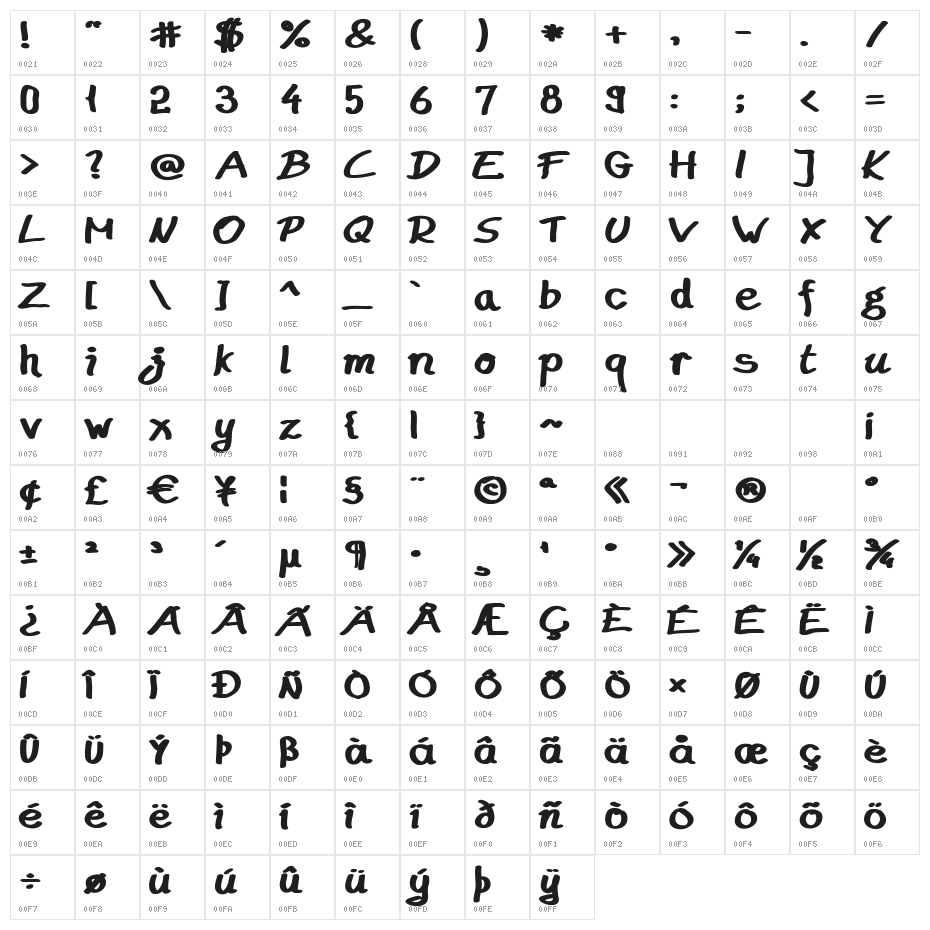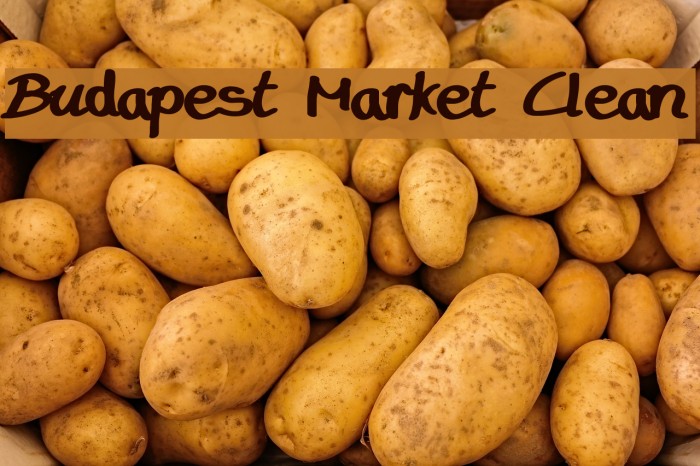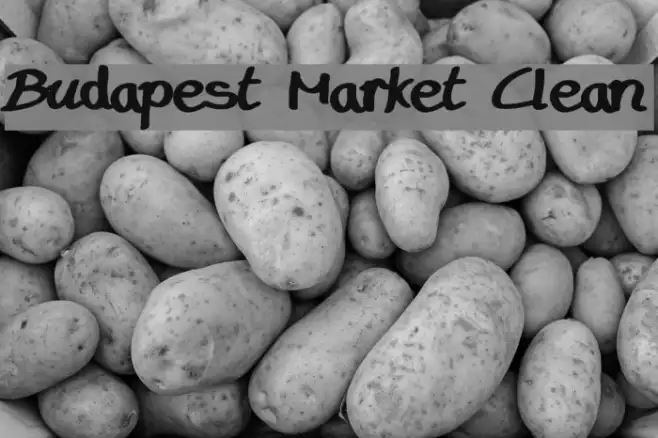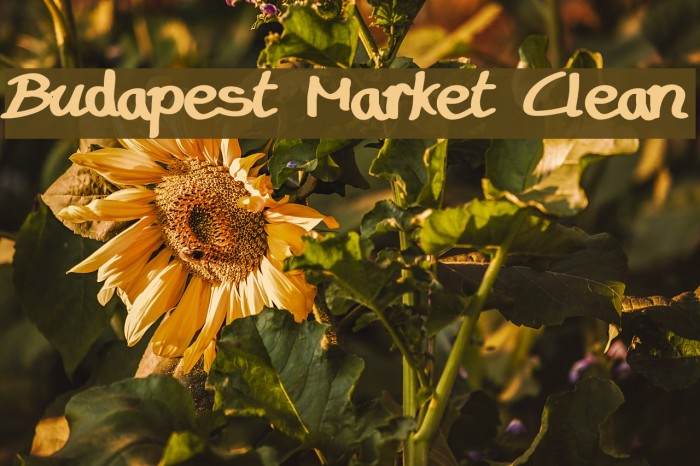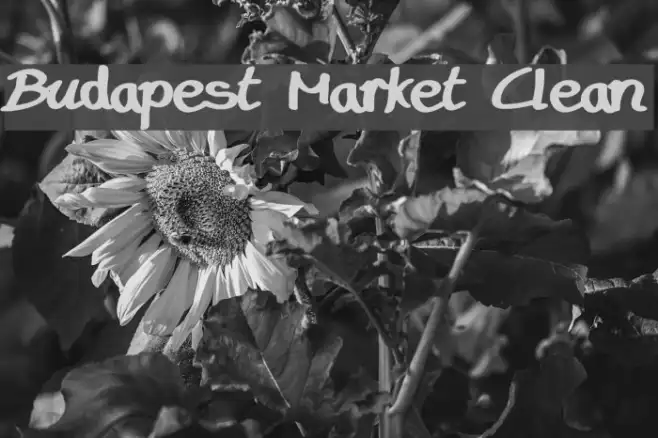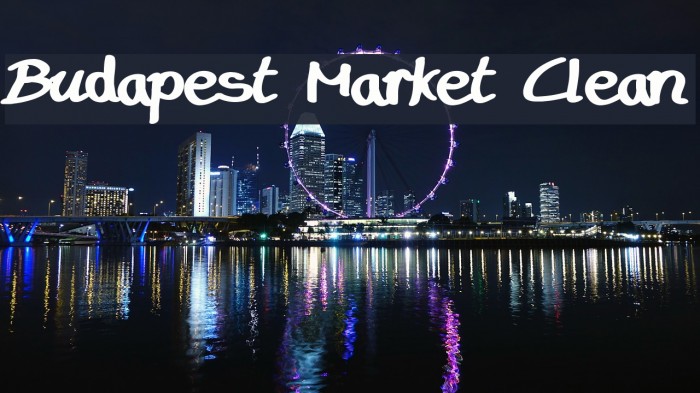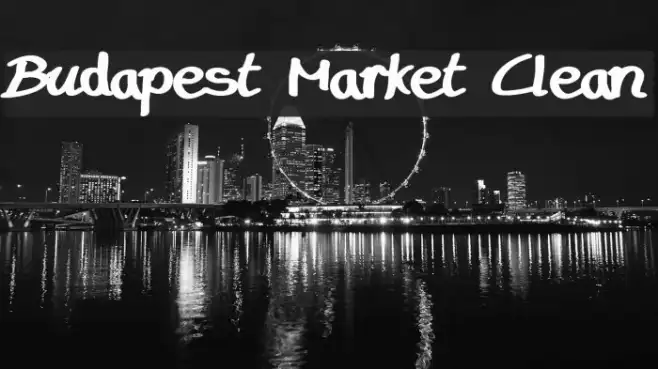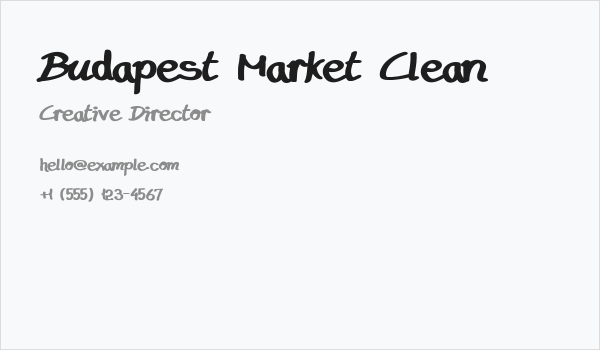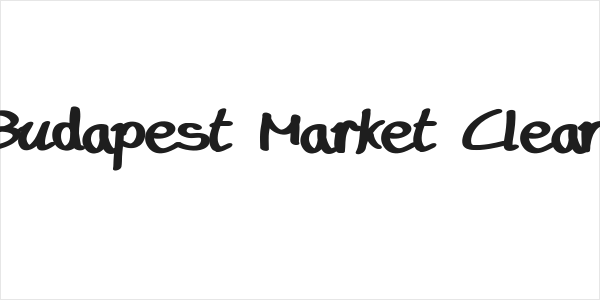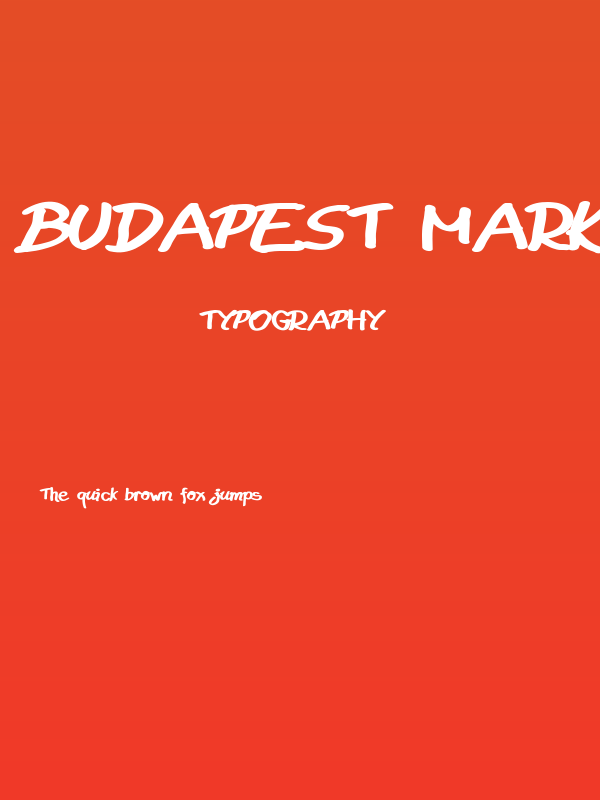
Budapest Market Clean Font
Budapest Market Clean Description
This font features a playful and bold script style, characterized by its thick, flowing strokes and rounded edges. The uppercase letters are slightly slanted, giving a dynamic and energetic feel, while the lowercase letters maintain a consistent, lively rhythm. The numerals are equally bold, with a uniform thickness that complements the overall design. Special characters are crafted with the same attention to detail, ensuring a cohesive look across all glyphs. The font's informal and friendly appearance makes it suitable for projects that aim to convey warmth and approachability.
| Proposed Projects | Ideal for branding, packaging, children's books, and playful event invitations. |